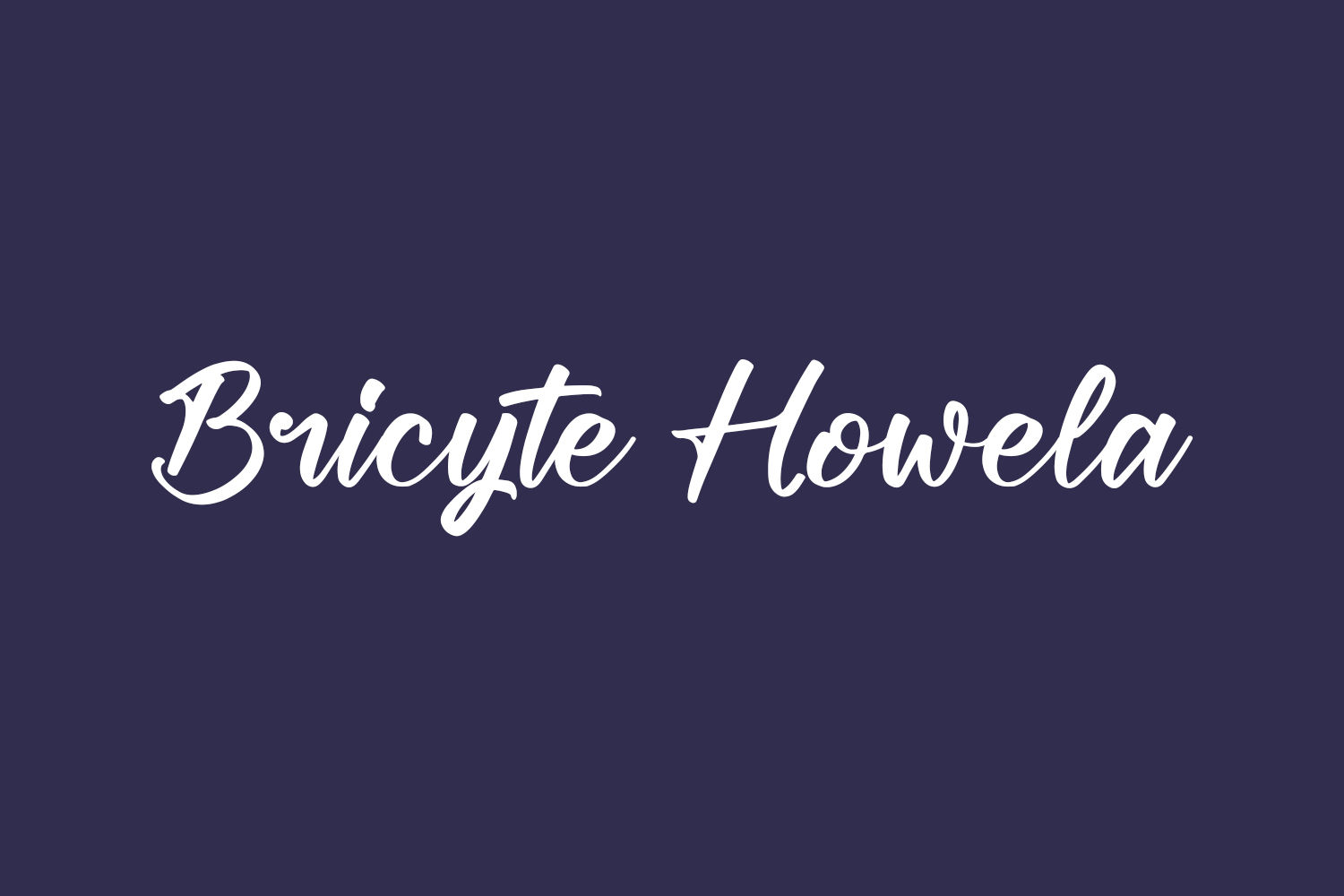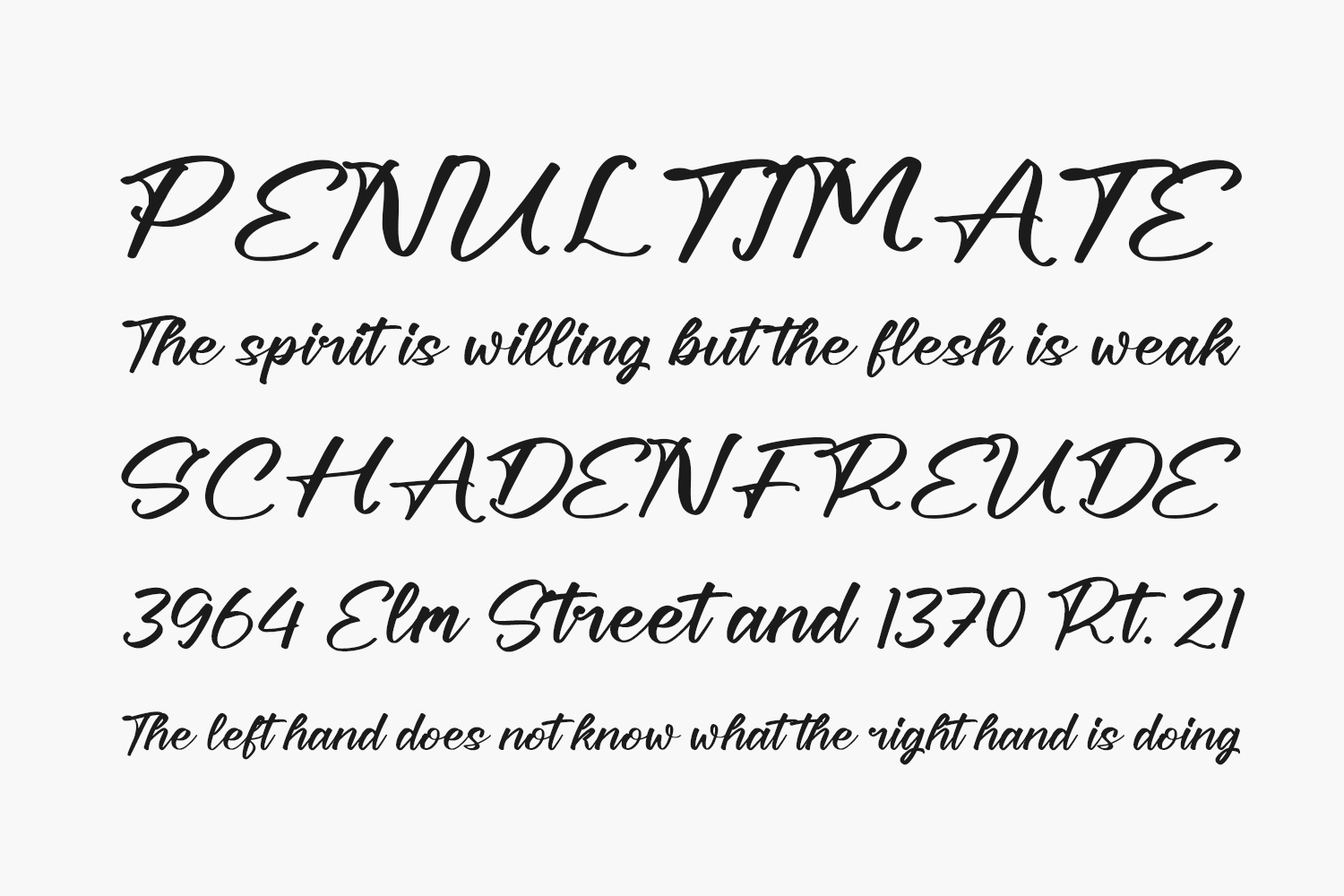
Bricyte Howela Free Font shines as a captivating brush script font, meticulously crafted with intricate detail. Versatile and dynamic, it’s a valuable addition to your font collection, elevating any project across various themes with its versatile charm. Download the font for free if you need it for personal use or purchase the full version for commercial use.